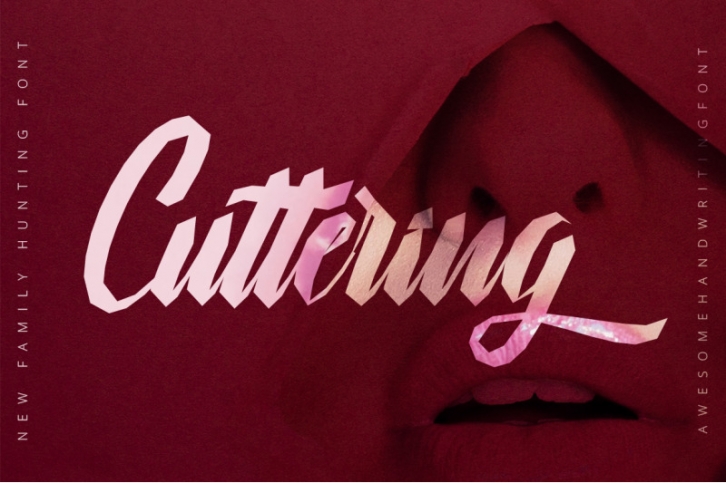
INTRODUCING Cuttering
Cuttering is a beautiful and bold handwritten font with a retro charm. Fall in love with its unique authenticity.
Mellow is a modern handwriten font. Cuttering a beautiful for logotype, website header, fashion design, card design and any more.
Cuttering comes with elegant style, It also comes as a Cuttering font, It contains a full set of lower & uppercase letters, a large range of punctuation, version texture